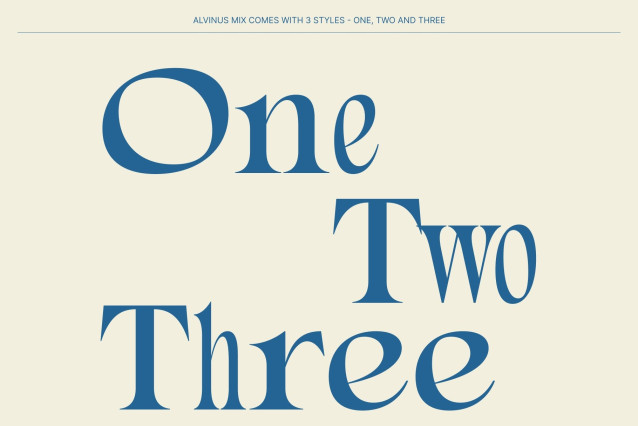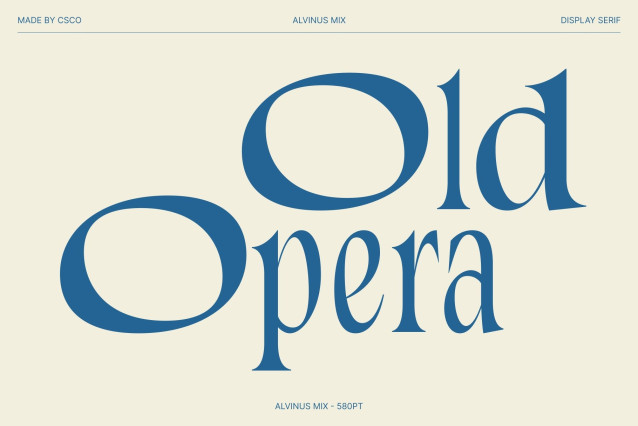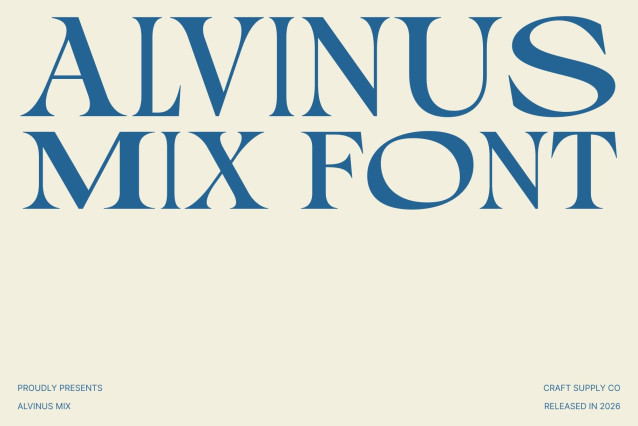
Alvinus Mix Font
Alvinus Mix – Modern Serif Font: A Fusion of Elegance and Contemporary Expression
Elegant Modern Serif with Mixed Weight Style
This is a modern serif font that blends elegance with a contemporary spirit. Designed to bring beauty and refinement into every project, this font introduces a distinctive mixed-weight approach that instantly elevates visual storytelling. Its graceful structure and polished presence make it an ideal choice for designers who want to create sophisticated yet fresh compositions.
A Unique Mix of Thin, Regular, and Bold Characters
What makes this font truly stand out is its carefully crafted combination of thin, regular, and bold letterforms within the character set. This dynamic contrast creates a lively rhythm that feels modern, artistic, and expressive. Each character appears thoughtfully balanced, allowing typography to feel more engaging and visually rich without losing clarity.